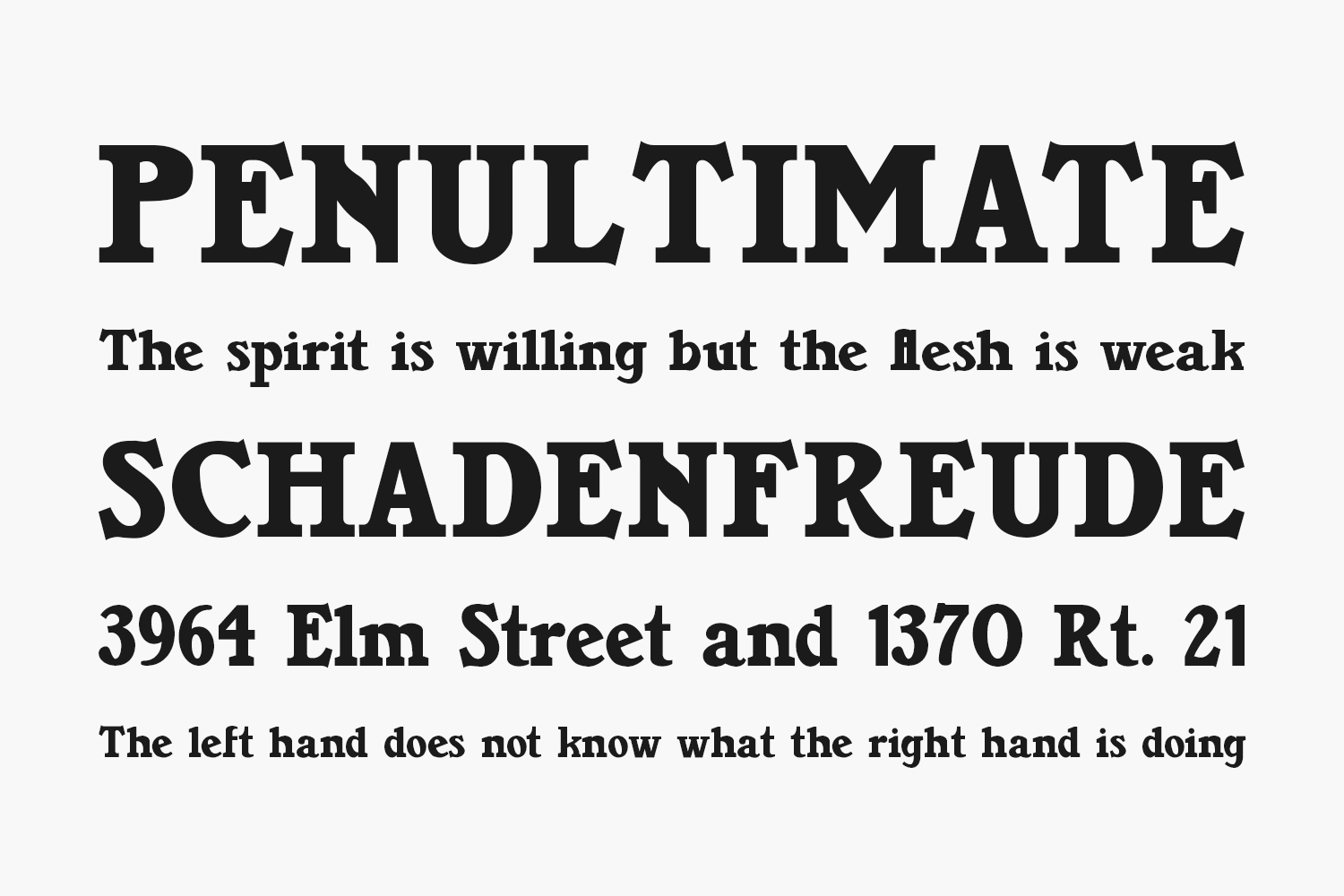
Bruntsfield CF Free Font is my completely redrawn revival of Bruntsfield, a metal typeface I found in Specimens of Printing Type (Miller & Richard, Edinburgh, n.d. (c. 1900)). Bruntsfield is a black serif display font and is suitable for posters, advertising, logos, headlines, signage, and greeting cards. Take note of two design features of this font. 1. Several of the glyphs have very pronounced spurs; 2. Many of the lower case glyphs have enlarged curved corners that give the font a unique appearance. I believe the spurs and “swooshes” give Bruntsfield arresting energy without drawing the viewer’s attention away from the product, service or cause your design promotes.